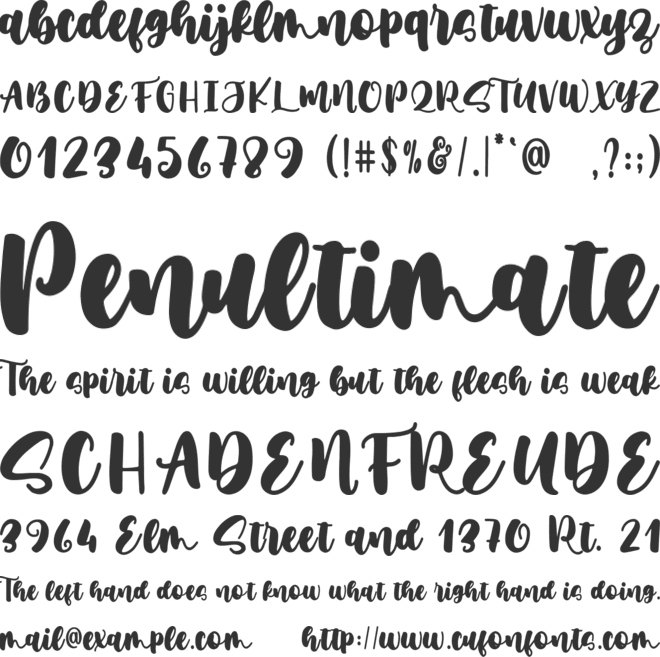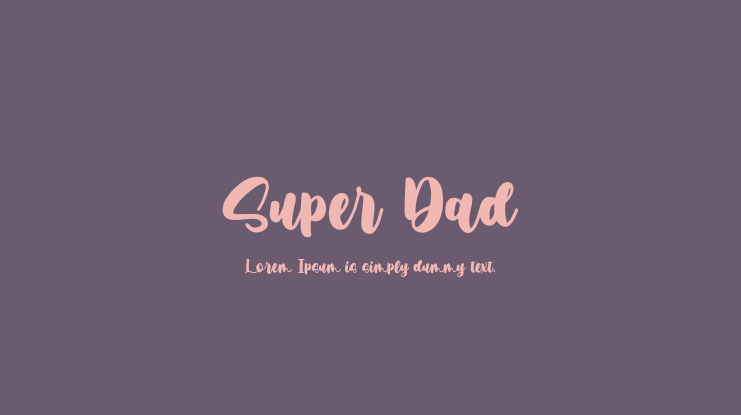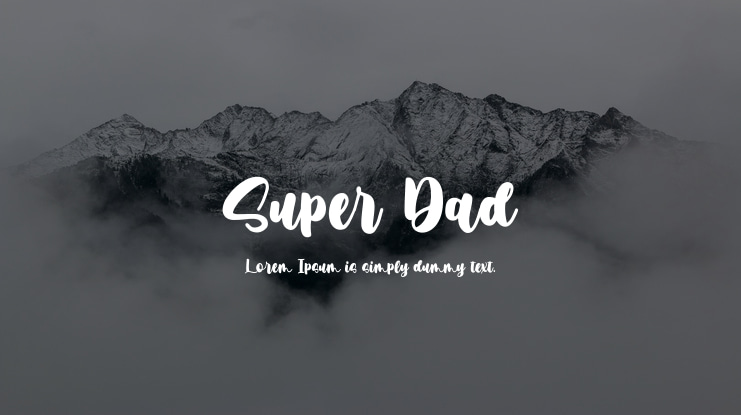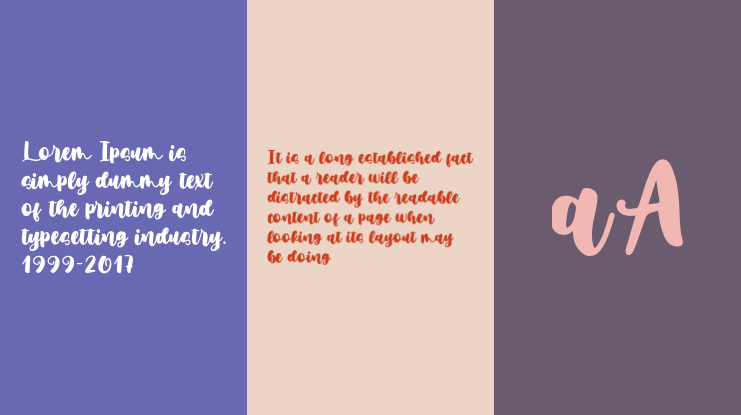
Super Dad Font
Super Dad is a magical script font carefully created with a touch of elegance. Whether you’re looking for fonts for Instagram or calligraphy scripts for DIY projects, this font will turn any creative idea into a true piece of art!